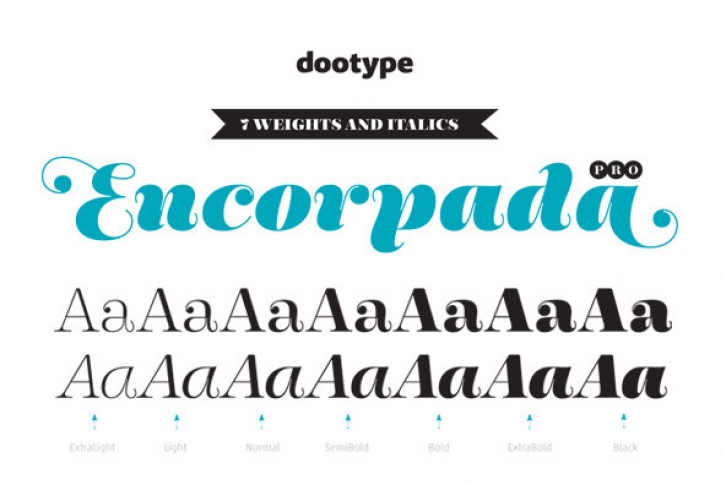
With seven weights and a lot of curves. Freely inspired by the didones shapes, Encorpada Pro now have a extended character set with more than 40 languages supported, Opentype Features and Amazing Swashes in Italic Version. Enjoy It.